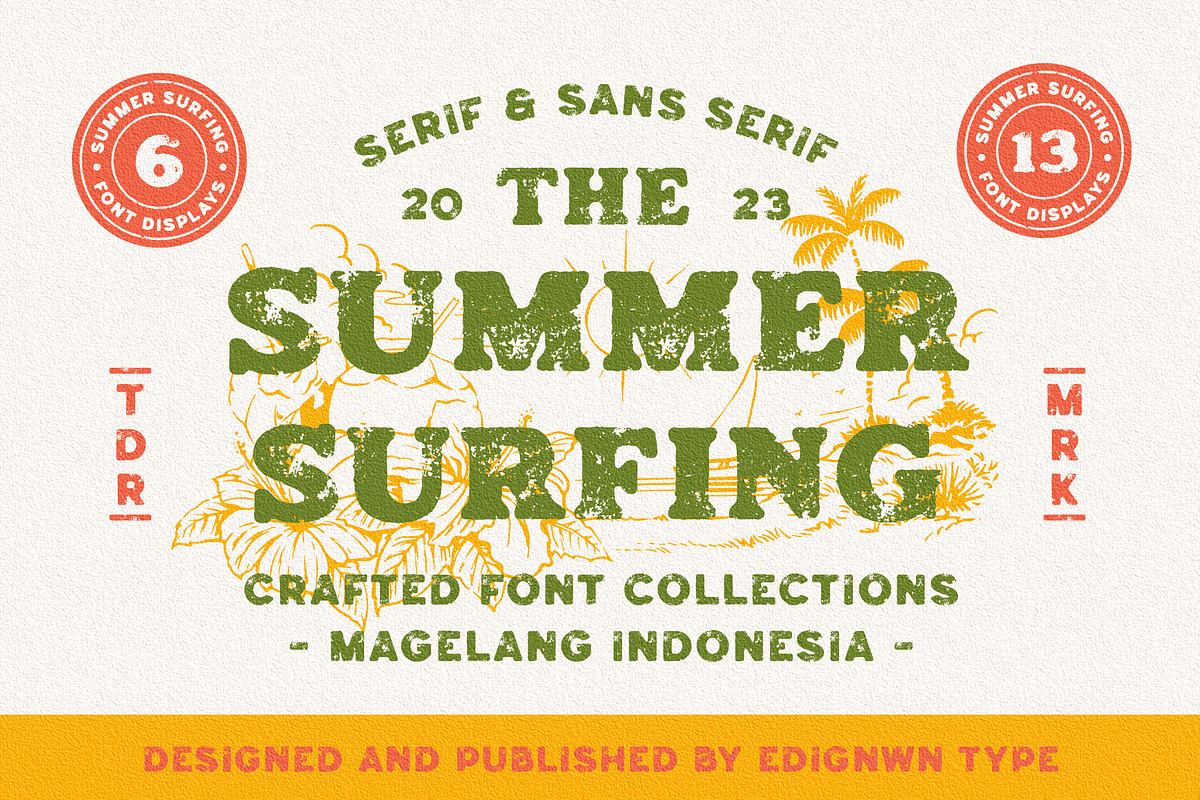
Summer Surfing - Display Font Free Download
Summer Surfing – Display Font Free Download is a fun, vibrant typeface that captures the carefree spirit of sunny days, ocean waves, and coastal adventures. Please note, you are required to purchase this font for commercial use. It is available for free download for testing and personal projects only.
With its bold curves and playful personality, Summer Surfing is perfect for beach-themed branding, travel posters, summer event flyers, surf shop logos, and retro apparel. It brings a splash of energy and a laid-back vibe to any project that needs a dose of sunshine.